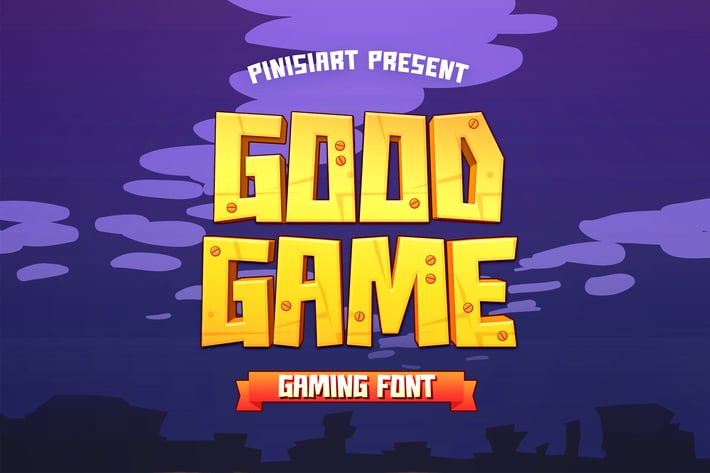
Good Game - Gaming Kids Font
It's all about metaverse, future, and technology...but with a gaming attitude all over it.
Suit perfectly for future themes books market, online games, stationary, school supplies font, poster, birthday invitation, youtube covers, youtube thumbnails, social media page covers and so on...